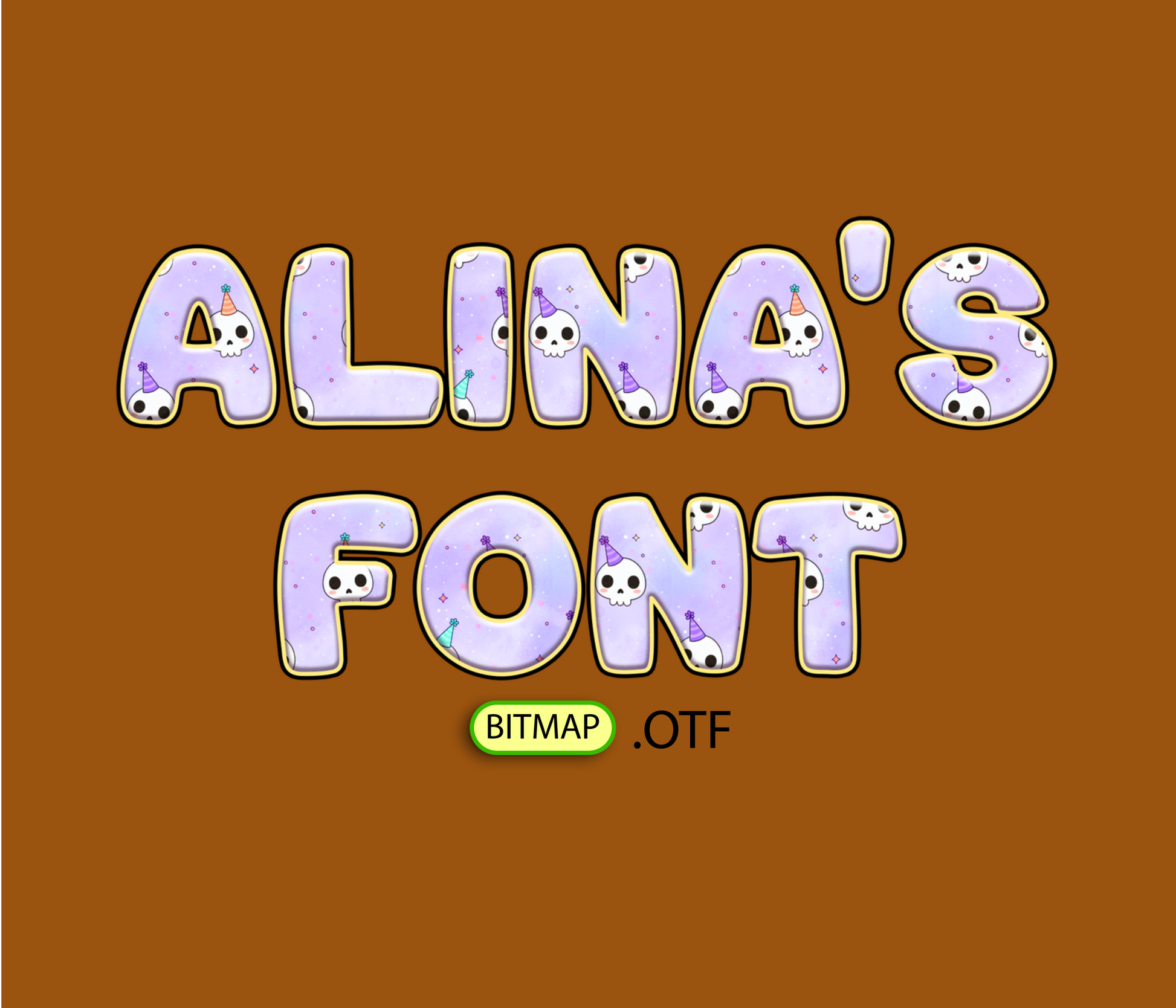
Creepy Cute Halloween Pattern Font
Step into the spooky-sweet world of Halloween charm with our Creepy Cute Halloween Pattern font, capturing the essence of adorable monsters and festive frights. Perfect for Halloween enthusiasts, party planners, event organizers, and designers, this font brings the playful, whimsical spirit of trick-or-treat celebrations to your projects. Create delightful materials, merchandise, or digital content with the charming energy of spooky season festivities.
Our Creepy Cute Halloween Pattern font features playful, decorative lines and pattern-filled characters reflecting the world of adorable spookiness. Ideal for:
- Event Promotions: Create enchanting invites, posters, and banners for Halloween parties, trick-or-treat events, and costume celebrations that capture the spirit of sweet scares
- Merchandise Design: Perfect for t-shirts, posters, and accessories that showcase the whimsical aesthetic of cute monsters and festive Halloween themes
- Digital Media: Enhance websites, blogs, and social media with charming headers and graphics that express the fun of spooky season celebrations
- Halloween Content: Add authentic flair to party decorations, seasonal projects, and creative designs inspired by adorable frightful tales
- Personal Projects: Bring festive excitement to scrapbooking, DIY crafts, and home decor inspired by the world of cute Halloween magic
Our font pays tribute to the iconic world of Halloween festivities, empowering your designs with its playful and spooky spirit. Whether crafting promotional materials, designing merchandise, or adding a whimsical touch to personal projects, this font communicates the charming essence of trick-or-treat celebrations. Ready to inject adorable spookiness into your creations? This font is your key to exciting, impactful design.